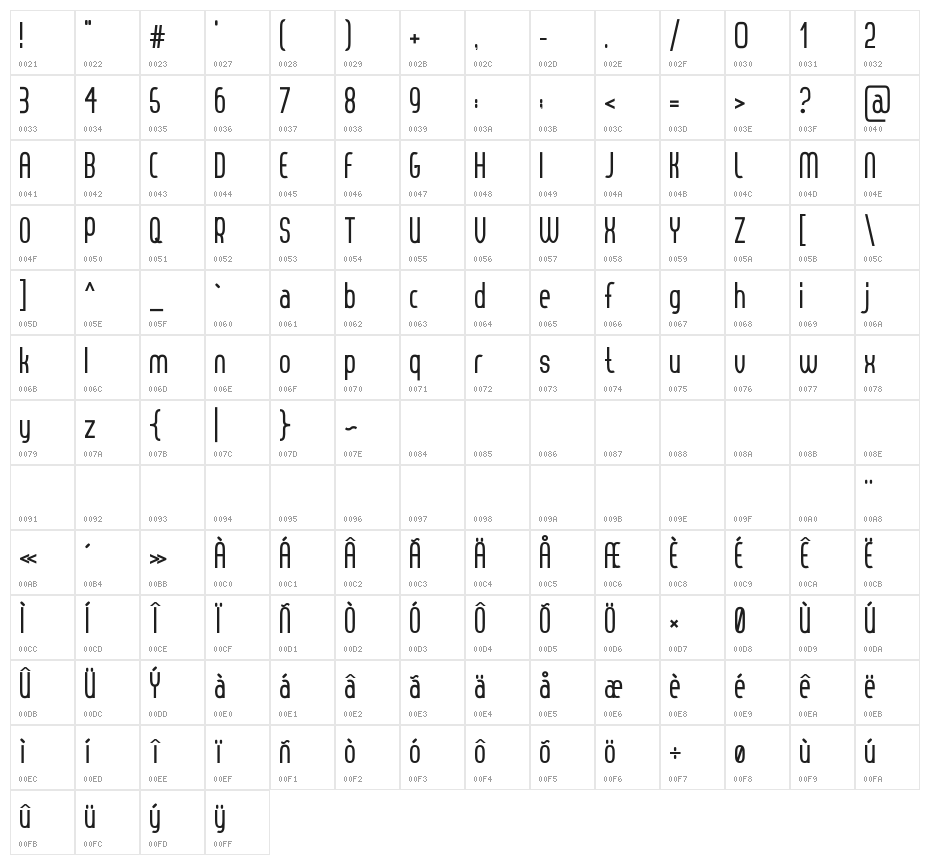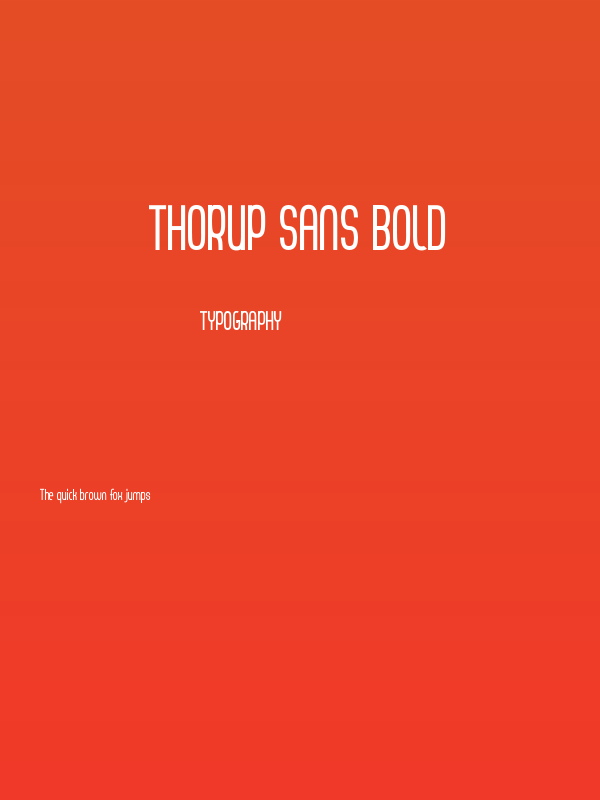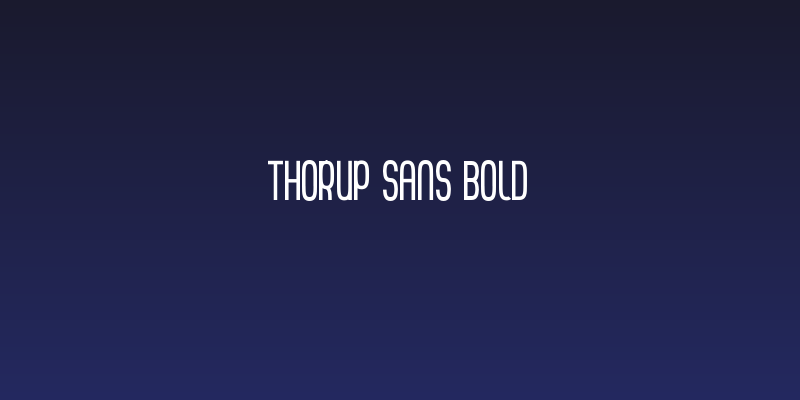
Thorup Sans Bold Font
Thorup Sans Bold Description
This font features a clean, modern sans-serif style with a bold weight. The characters are uniformly structured with rounded edges, giving it a friendly and approachable appearance. The uppercase and lowercase letters maintain a consistent height, contributing to a harmonious and balanced look. The numerals are clear and easily distinguishable, making them suitable for various applications. Special characters are included, maintaining the same rounded and bold characteristics. The overall design is versatile, suitable for both digital and print media.
Use CaseHeadlines, Logos, Branding
Proposed ProjectsIdeal for branding, advertising, digital media, and print materials where a modern and approachable look is desired.